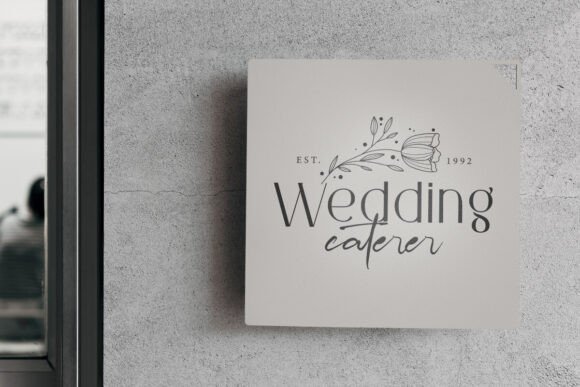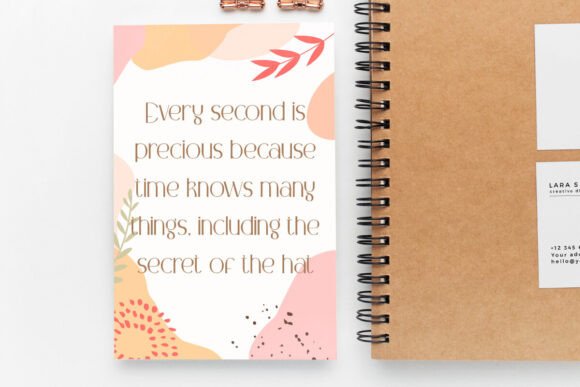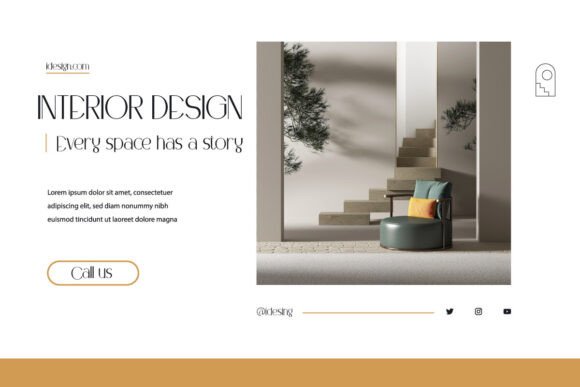
Bogatio Font
Bogatio Font is a fancy, sleek and elegant display font. This font has lines that are not too thin with a unique combination of shapes that make it look charming. It will suits many designs, such as brochure, business card, custom design, gift box, invitation, label, product packaging, quote, screen printing, signage, stationery, website, and more!